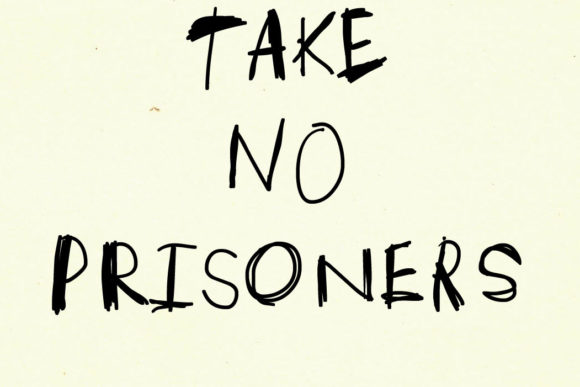
Get ready to unleash your inner child with Take No Prisoners, the ultimate handwritten font that captures the innocent charm and playful energy of childhood.
Picture this: a whimsical invitation to a birthday party, where each letter dances across the page like a mischievous doodle. Or a cheerful poster for a school play, where every word leaps off the paper with infectious enthusiasm. Take No Prisoners is the perfect font to ignite the imagination and bring a touch of youthful exuberance to any project.
Whether you're a parent, teacher, or anyone who loves the carefree spirit of childhood, this font is your ticket to creating designs that resonate with the young and the young at heart. It's the perfect choice for:
- Birthday party invitations
- School projects
- Classroom materials
- Children's books
- Scrapbooking
- Social media graphics
With its effortless charm and playful spirit, Take No Prisoners will bring a smile to your face and add a dash of whimsy to every design. So why wait? Download it today and embrace the joy of childhood with every stroke of your pen!